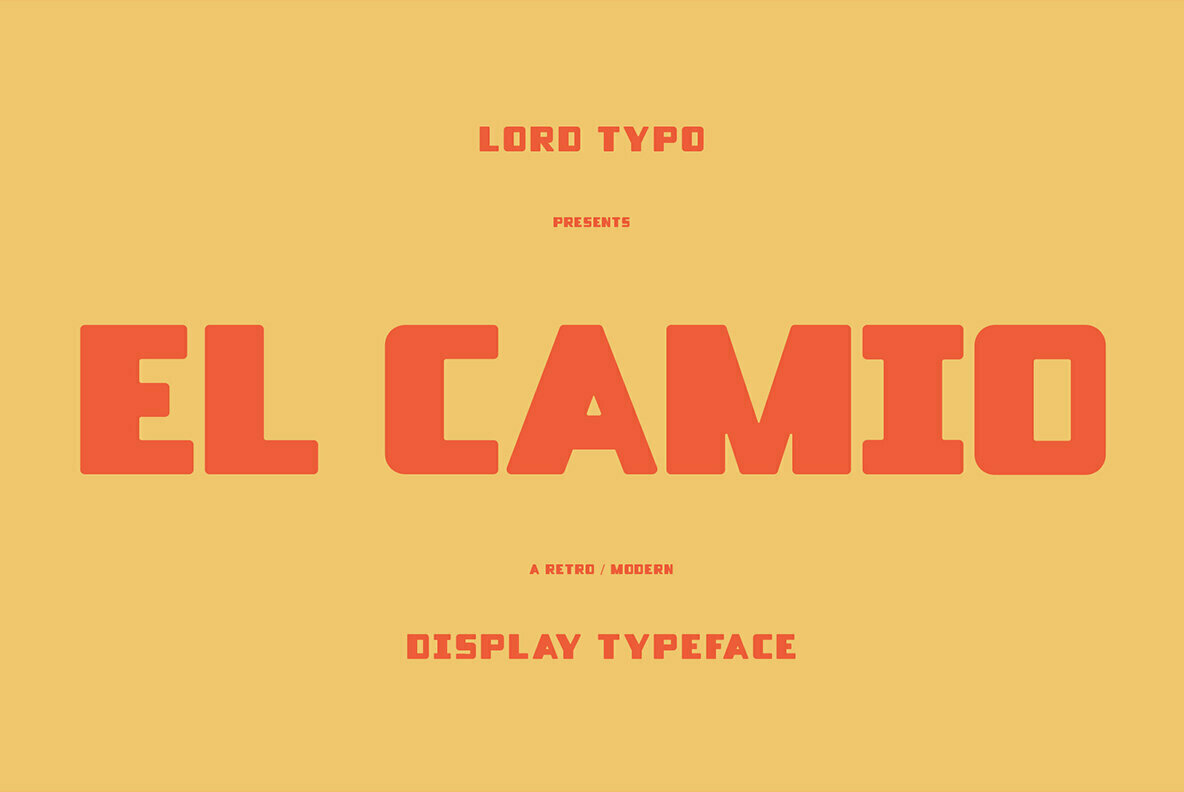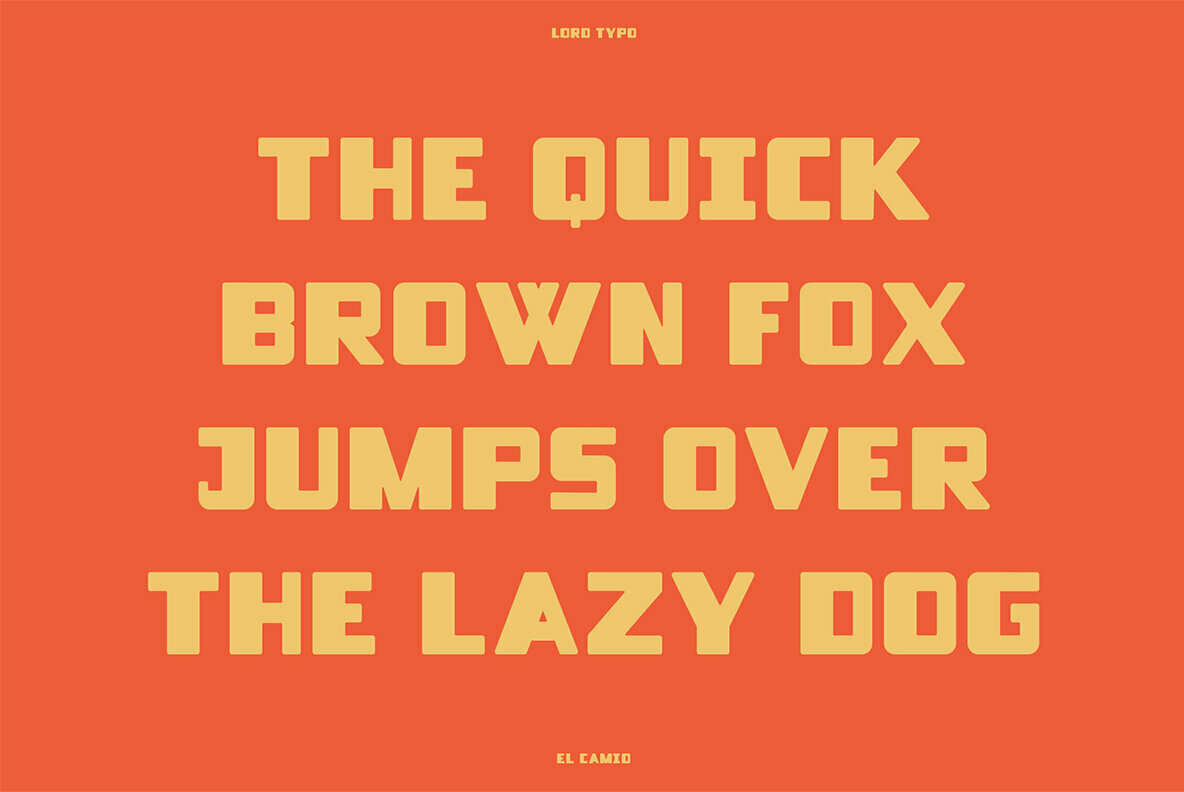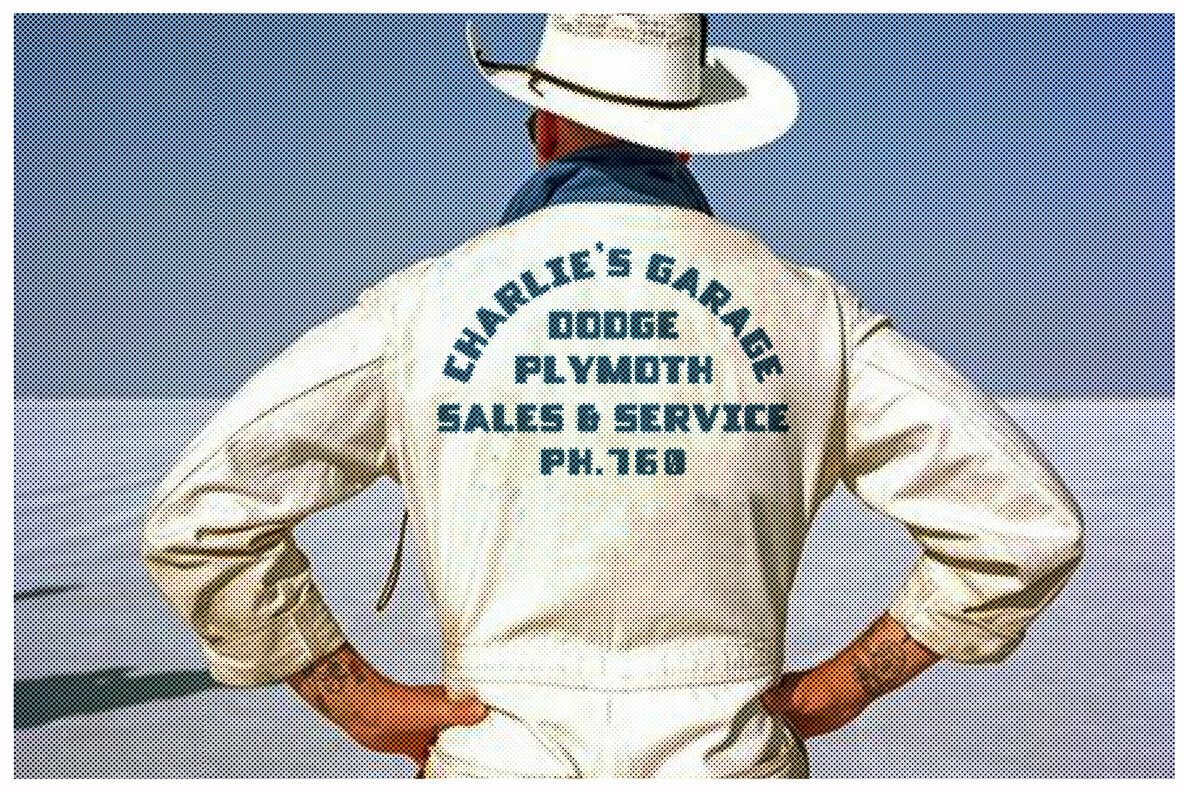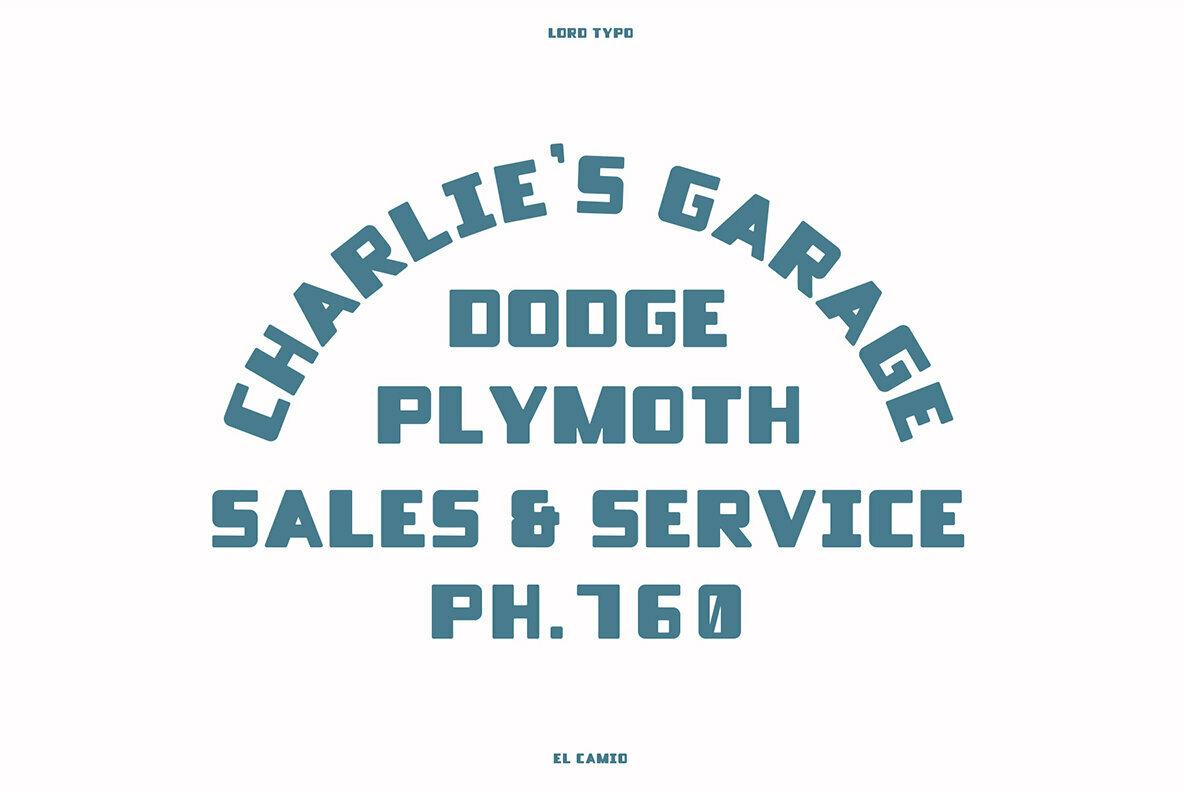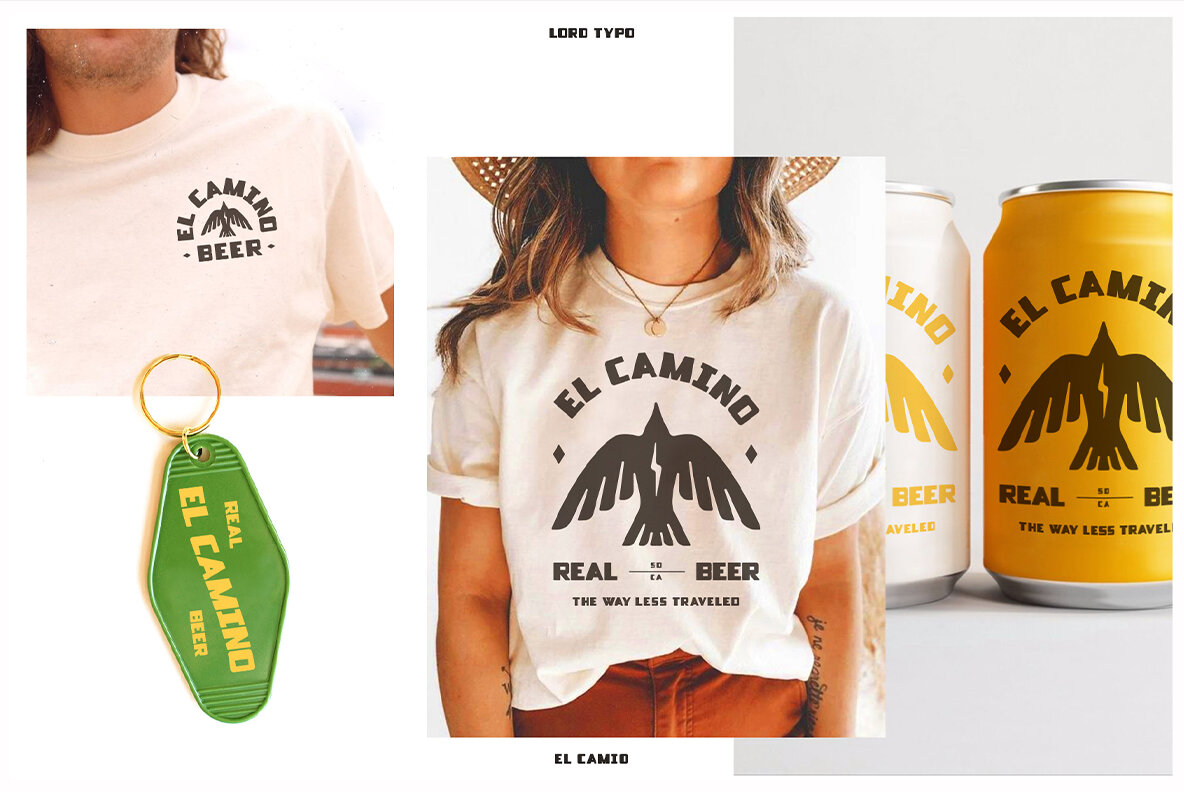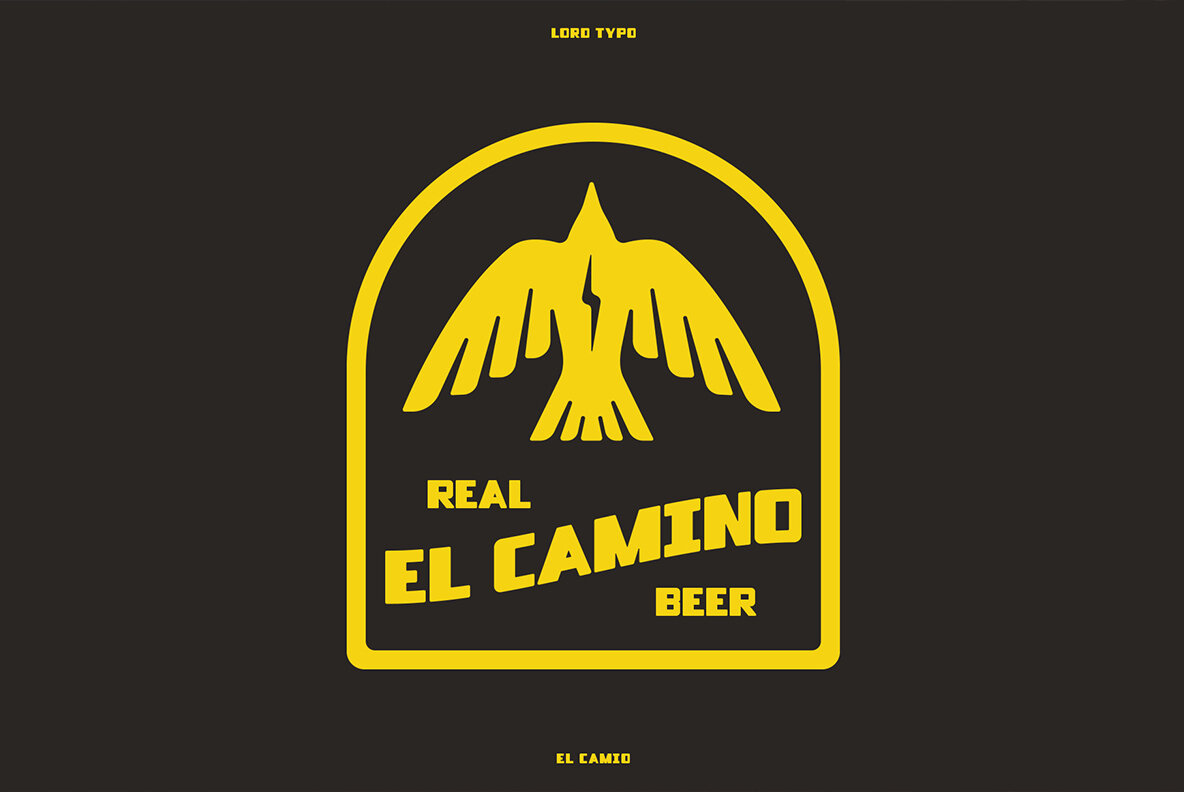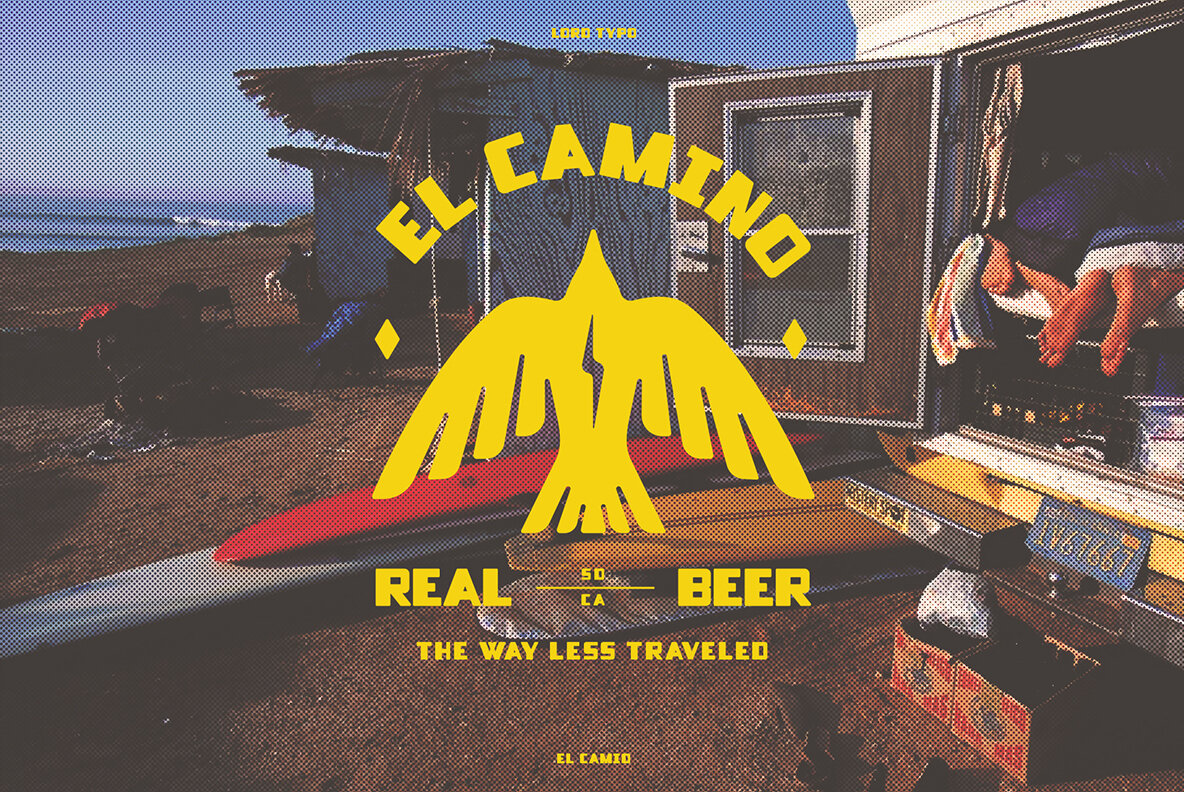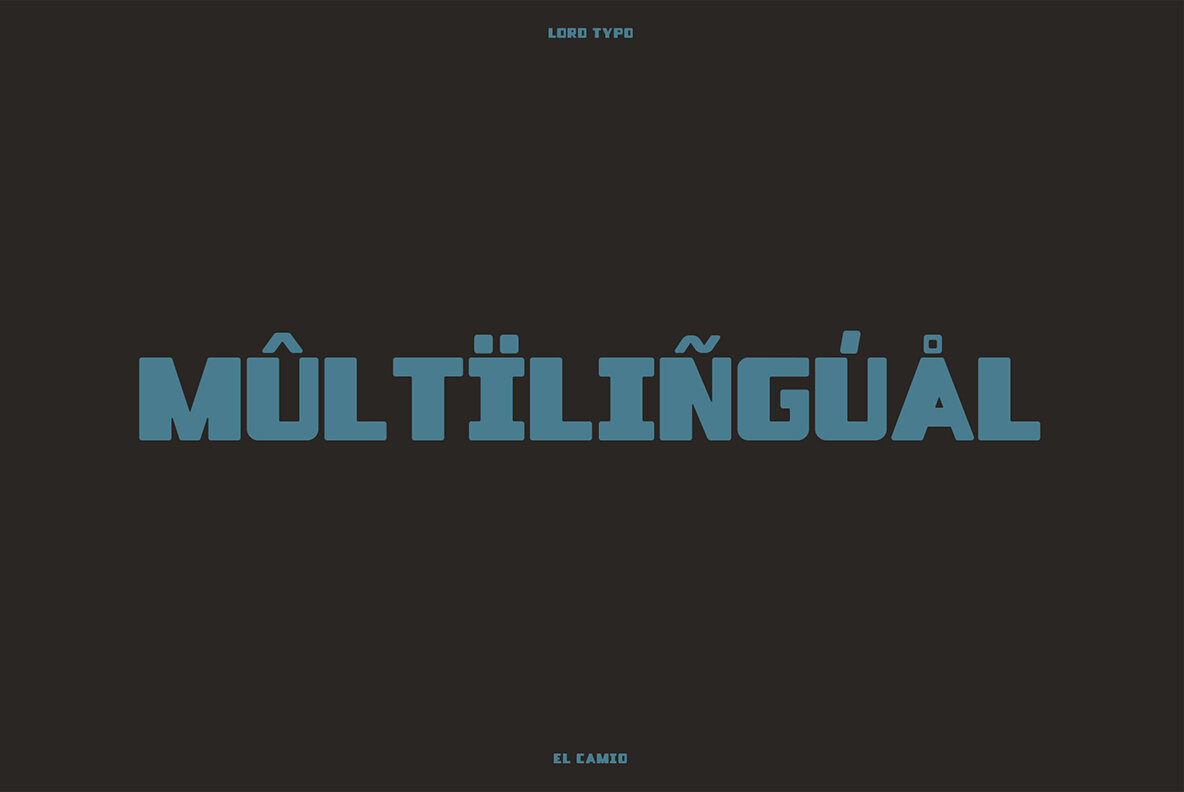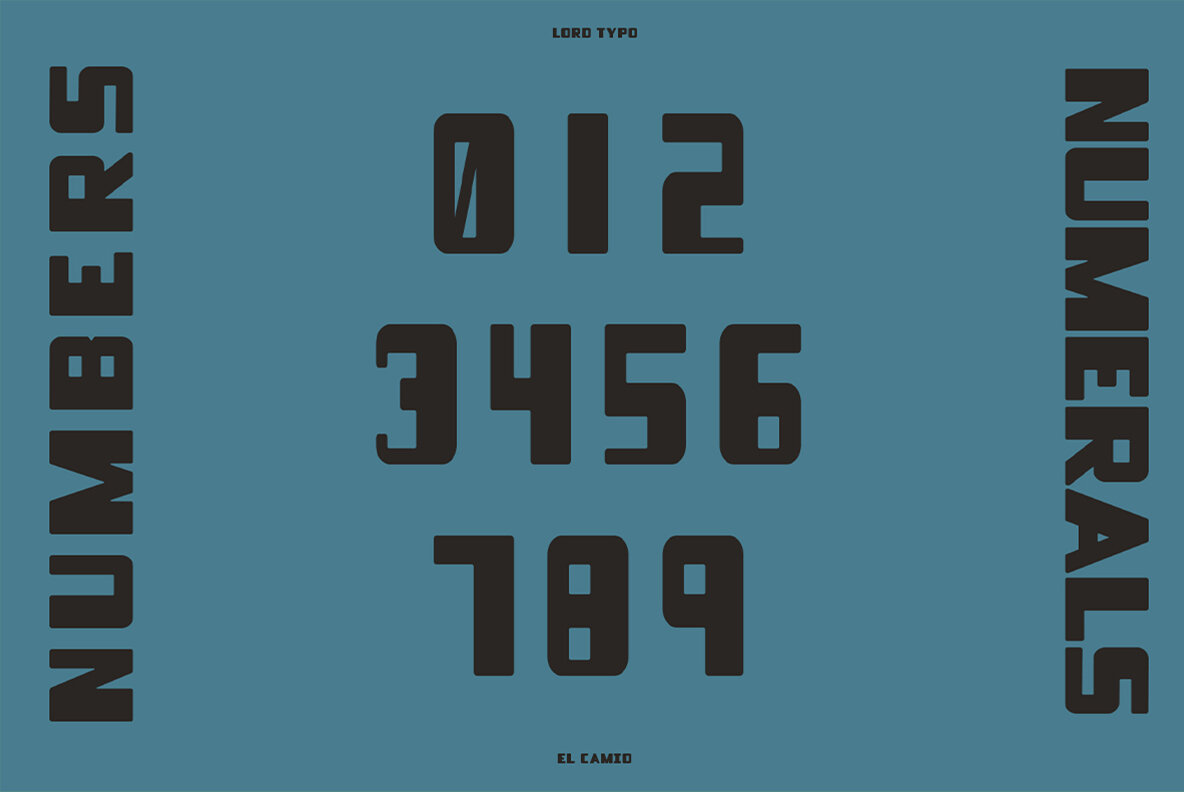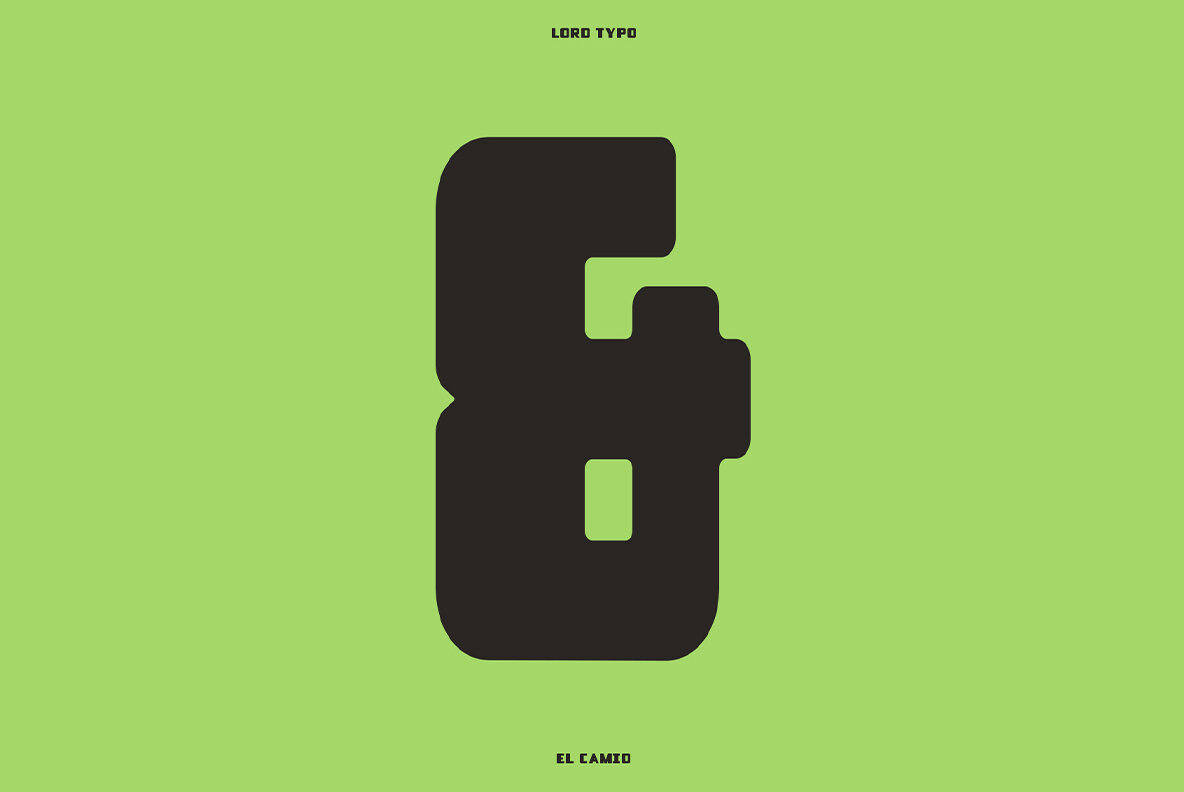
El Camio Font
El Camio Regular
El Camio is a throwback display font paying homage to the classic automotive typography of the 50's and 60's. It is an extremely versatile display font that can be used for anything from branding, logo design, beer labels, shirt graphics, playful editorial spreads and much much more. BUY ME!